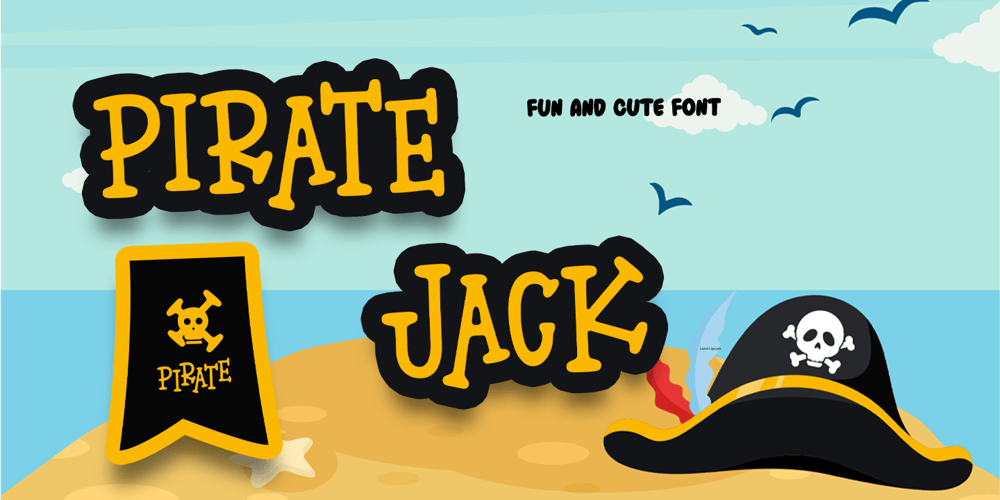
Pirate Jack
Pirate Jack font
Pirate Jack Font Family was designed by Doli Harahap and published by Tigade Std. Pirate Jack contains 1 styles and family package options. Pirate Jack is a cute and casual display font with an incredibly friendly feel. If you’re looking for fonts for Craft, Instagram or Fun Invitation, this font will turn any creative idea into a true piece of art!